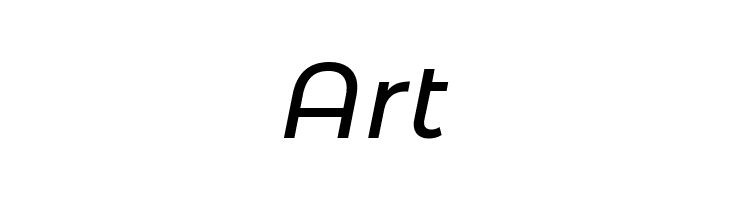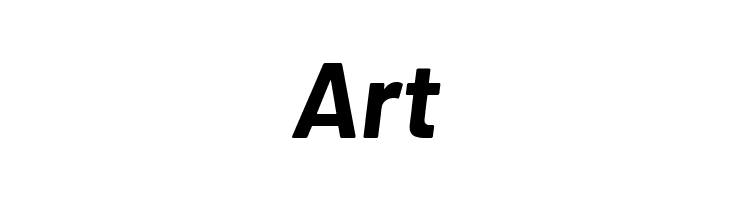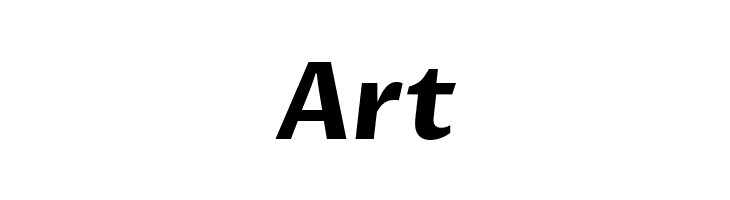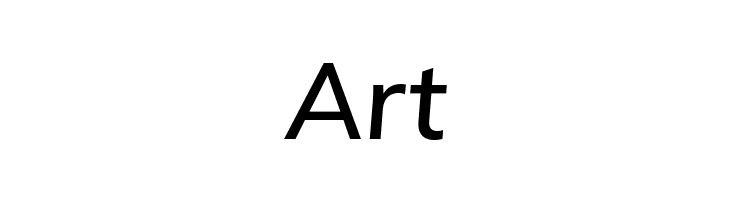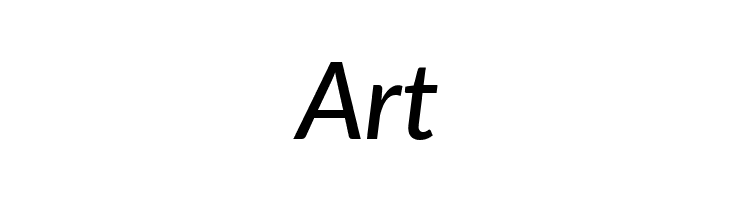
A modern, semi-bold italic sans-serif font with a dynamic and clean appearance.
A modern, italic sans-serif font with medium weight and low contrast.
A bold, italic, modern sans-serif font with consistent stroke thickness and a dynamic slant.
A modern, medium-weight italic sans-serif font with a clean and dynamic style.
A modern, bold, italic font with a clean and dynamic style.
A modern, italic sans-serif font with clean lines and a dynamic slant.
A modern, italicized sans-serif font with medium weight and normal spacing.
A modern, bold, and italic font with a sleek and dynamic design.
A modern, bold, and italicized font with medium contrast and smooth strokes.
A modern, slightly italic typeface with clean lines and moderate contrast.